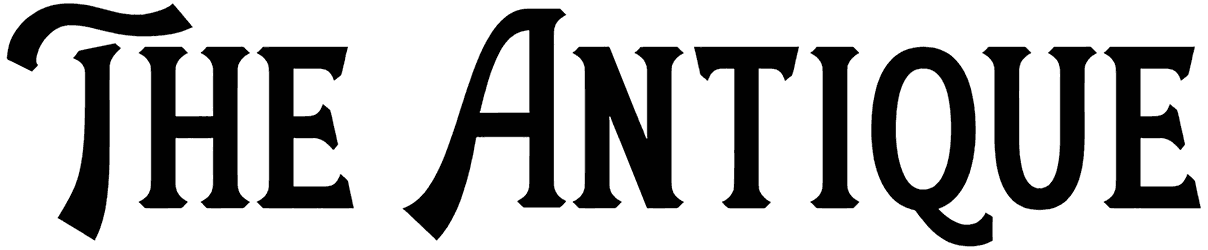
The Antique Font
Take a look at The Antique, a bold retro font uniquely designed to bring a true nostalgic touch to your work. It’s versatile and can be used in both classic and modern projects.
This antique font supports two types of capital letters, but it doesn’t include lowercase letters or some numbers. It will be an ideal choice for logotypes, movie titles, book covers, branding, and social media posts.